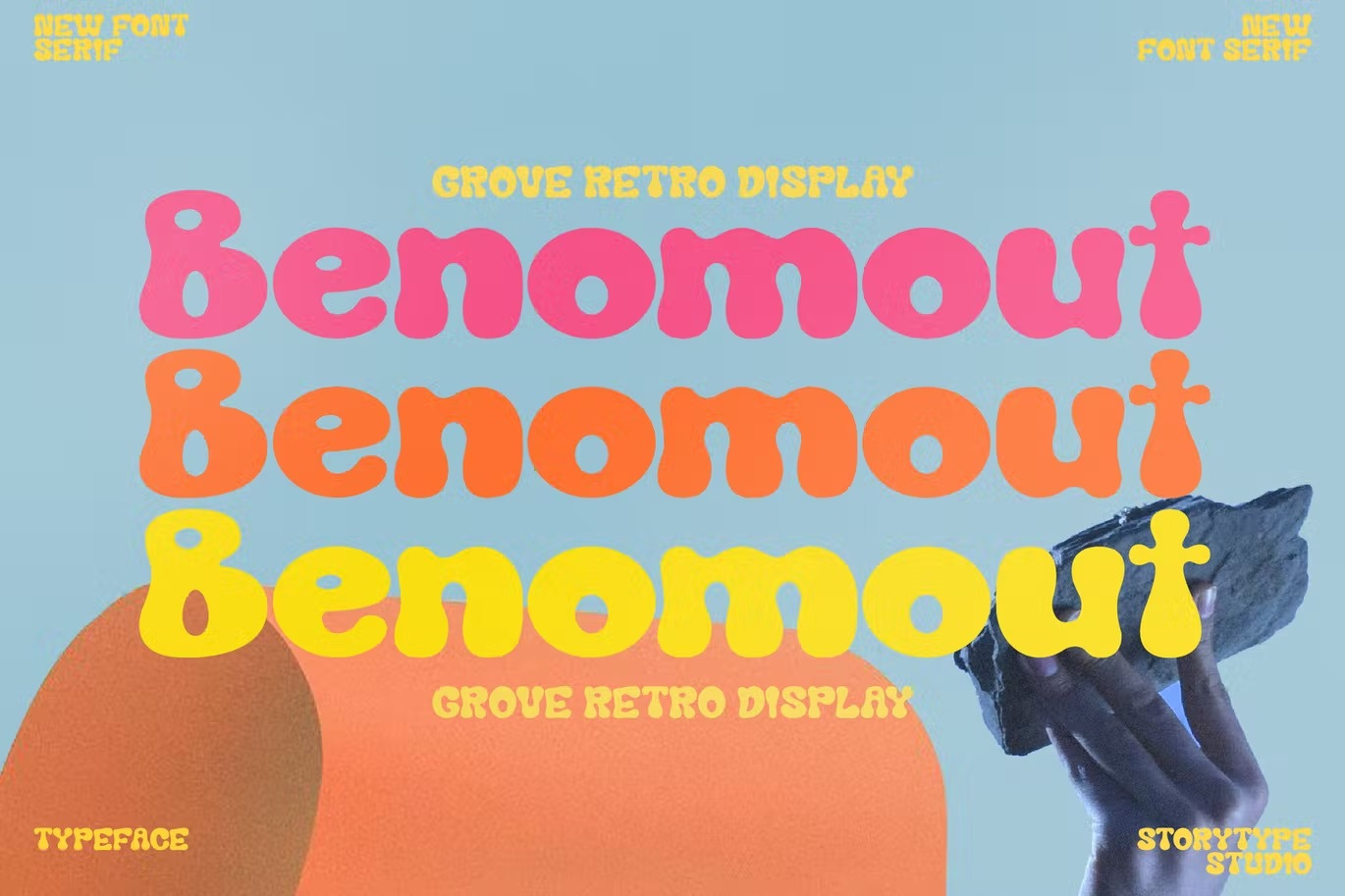
Free Benomout Grove Retro Display Font
Hi ladies & gentlemen, this is one of our fonts suitable to complement your digital and printed creative products. This font is perfect for posters, social media posts, branding, personal projects, etc.